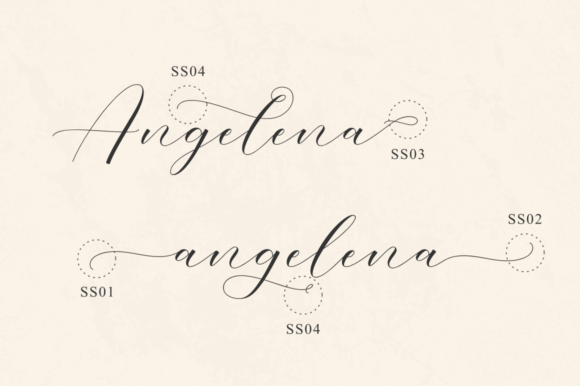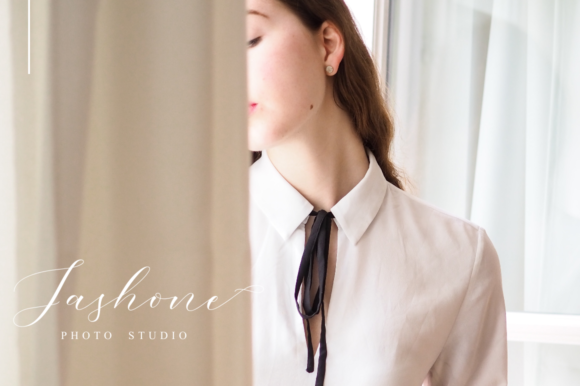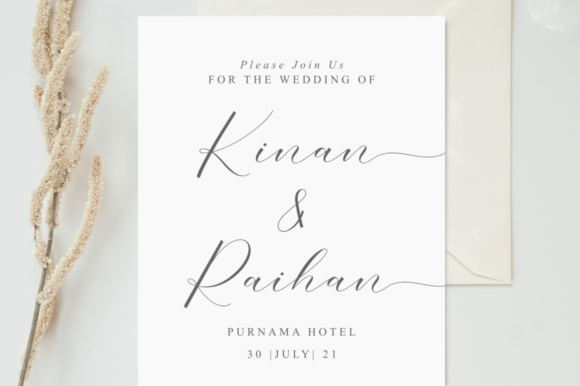
Introduction to Lindae Font
Lindae is a beautiful light handwritten font with a unique feel and a stunning impact.
Key Features of Lindae Font
Why Choose Lindae Font?
Lindae Font offers exceptional quality and versatility, making it a valuable addition to your design toolkit. Whether you’re creating for personal projects or commercial use, Lindae Font delivers professional results.